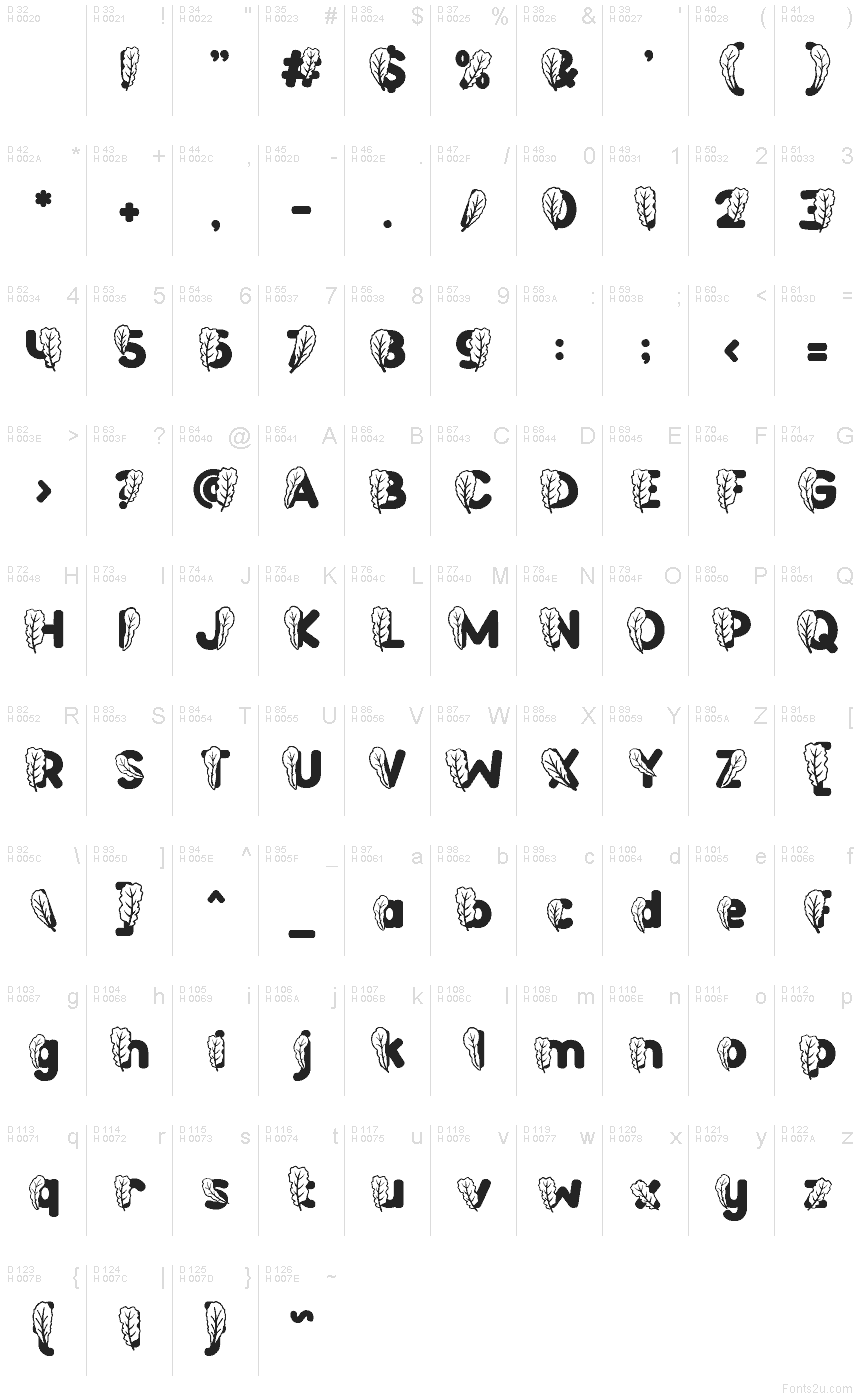
Green Delight Leaf 2
Green Delight Leaf 2 font by PutraCetol Studio is a bold and decorative display typeface that combines whimsical shapes with stylized leaf motifs. A playful mix of round and angular lines forms its curvy, expressive letterform style reminiscent of cartoon or comic fonts. The font exudes an organic and nature-inspired feel while also incorporating geometric features into its unique visual texture.
Incorporate this free decorative display font into various design projects such as posters, logos, packing designs, album covers, non-profit environmental campaigns, scientific presentations, banners, magazine covers and page headers in addition to web sections stand-out headlines.